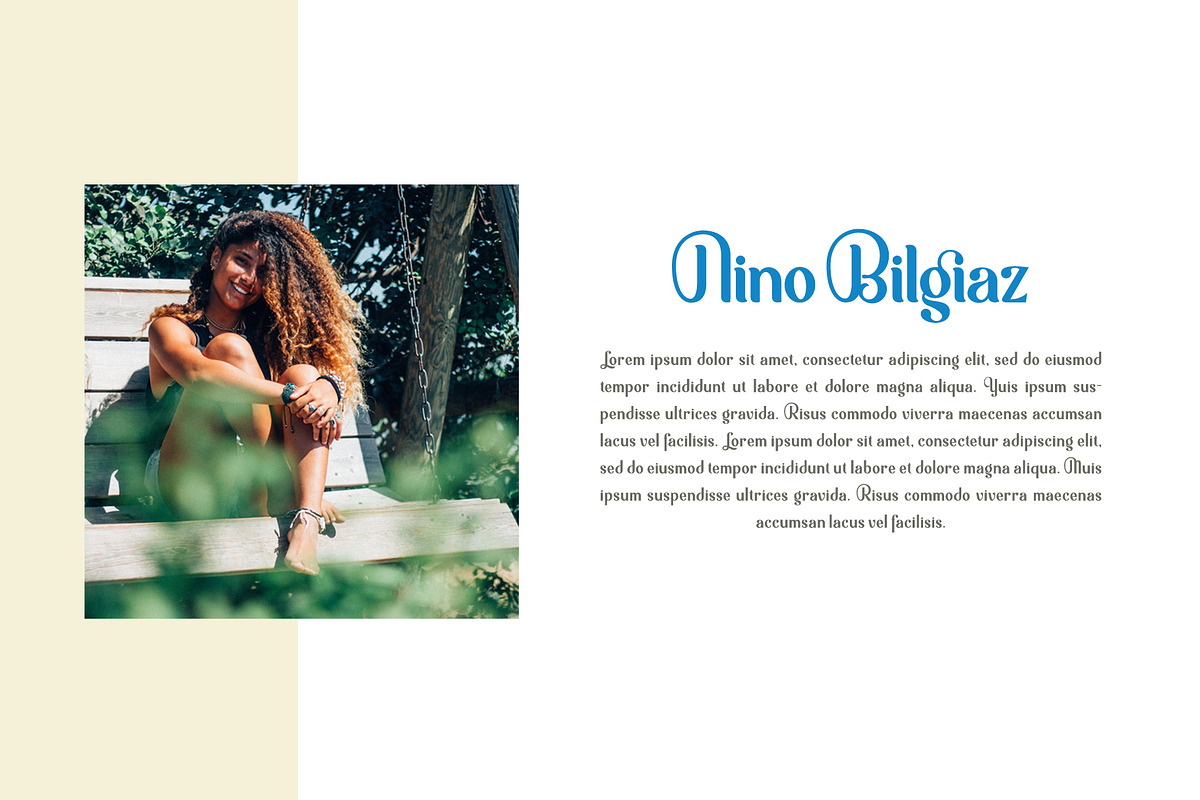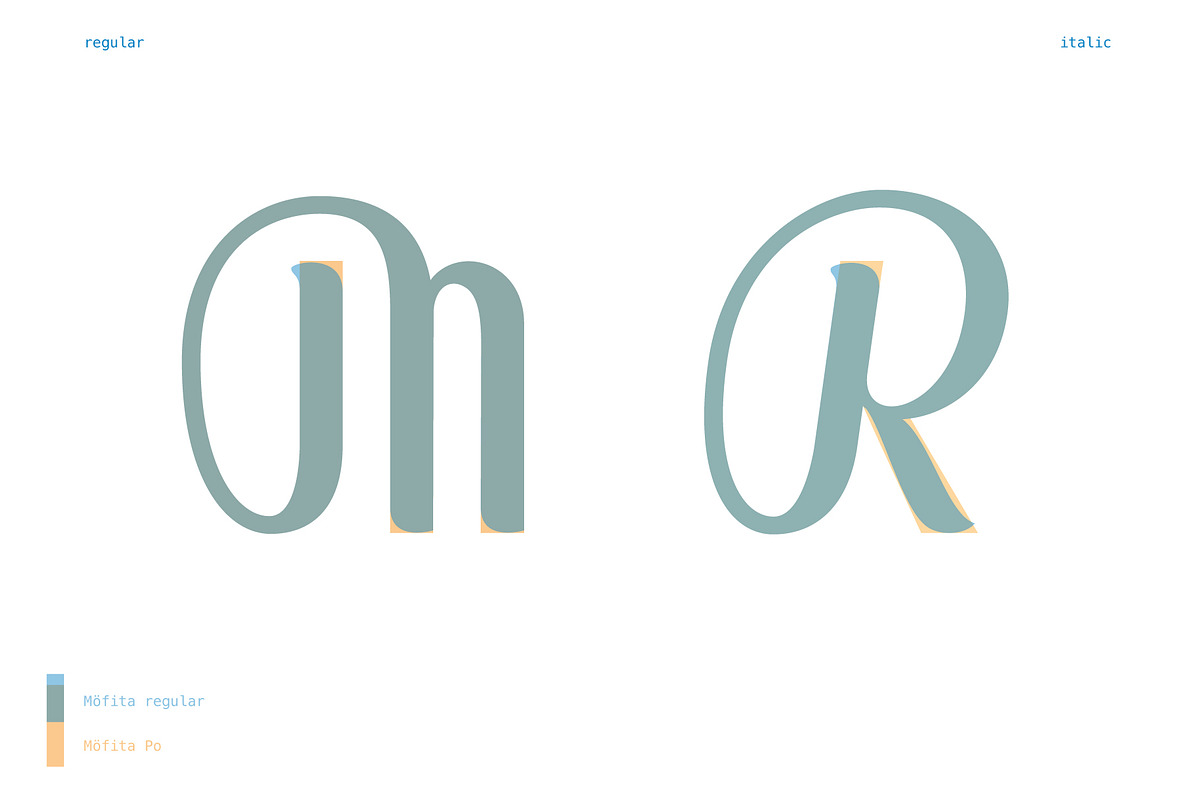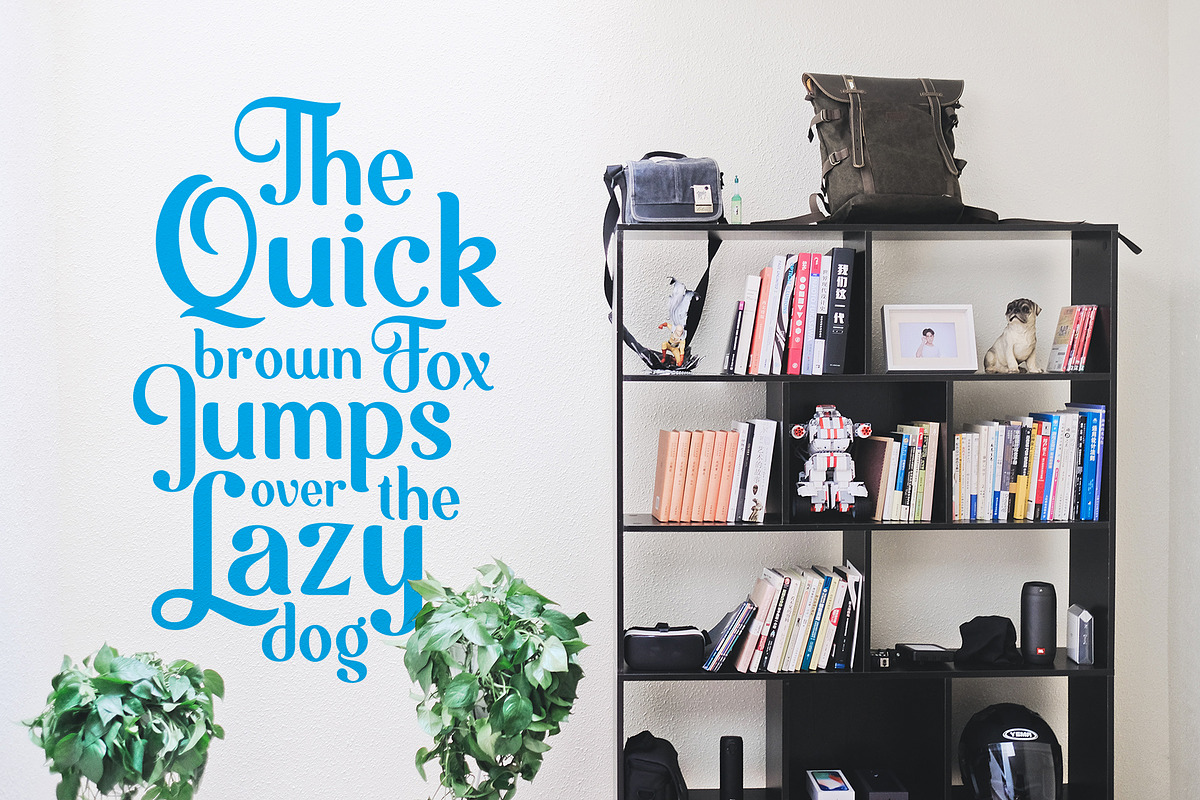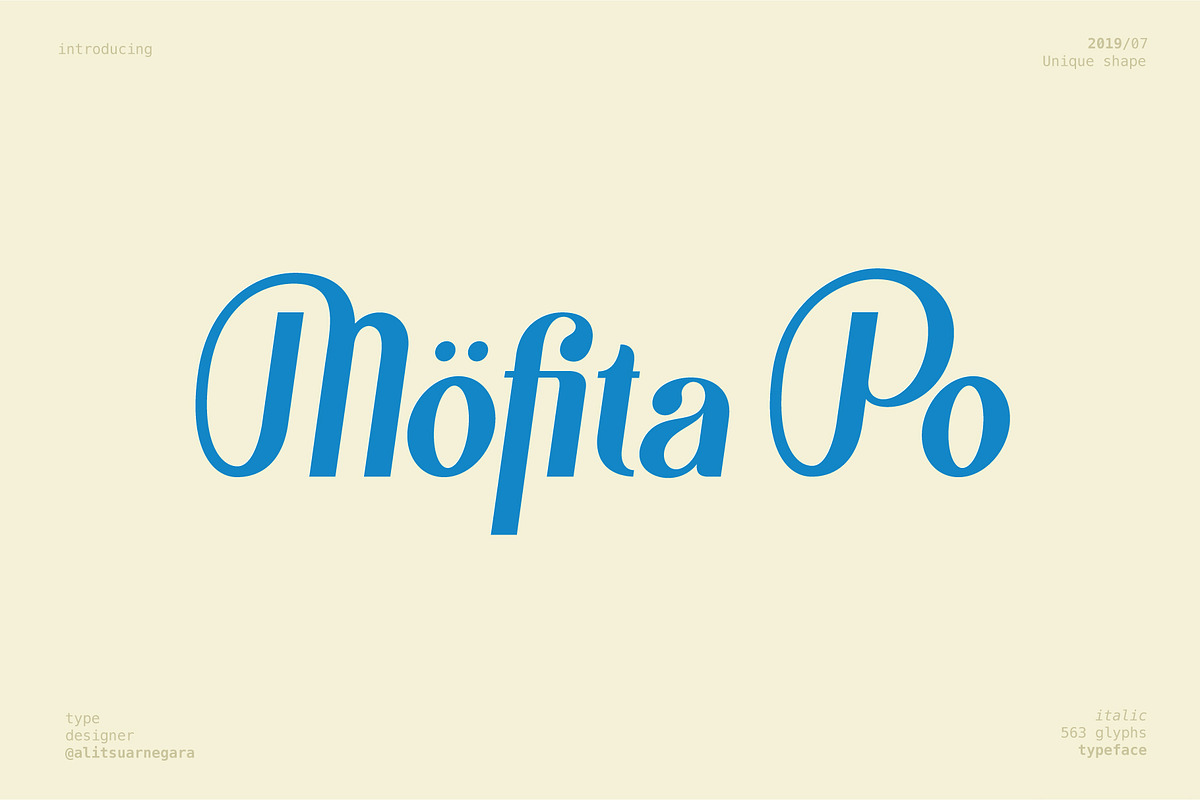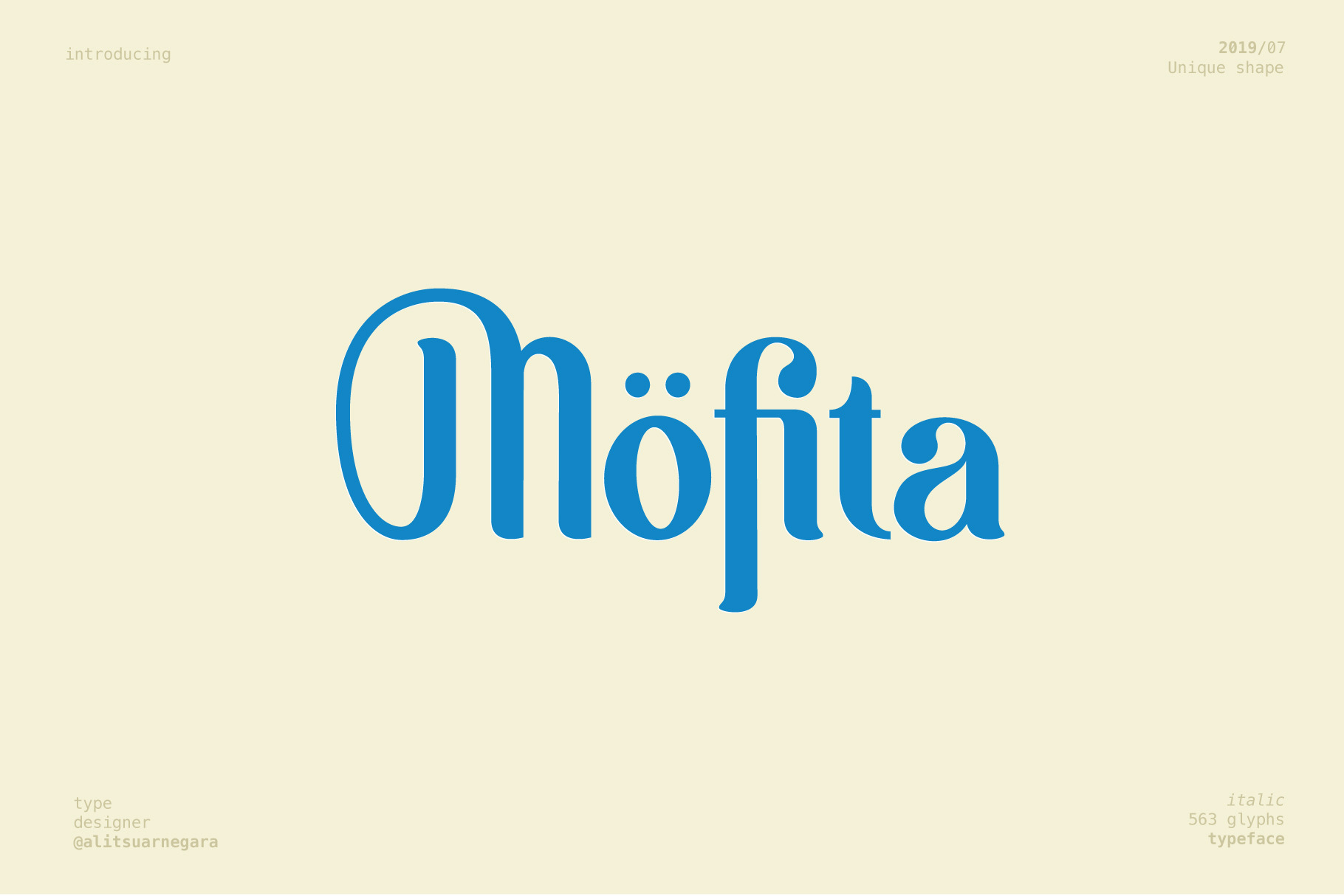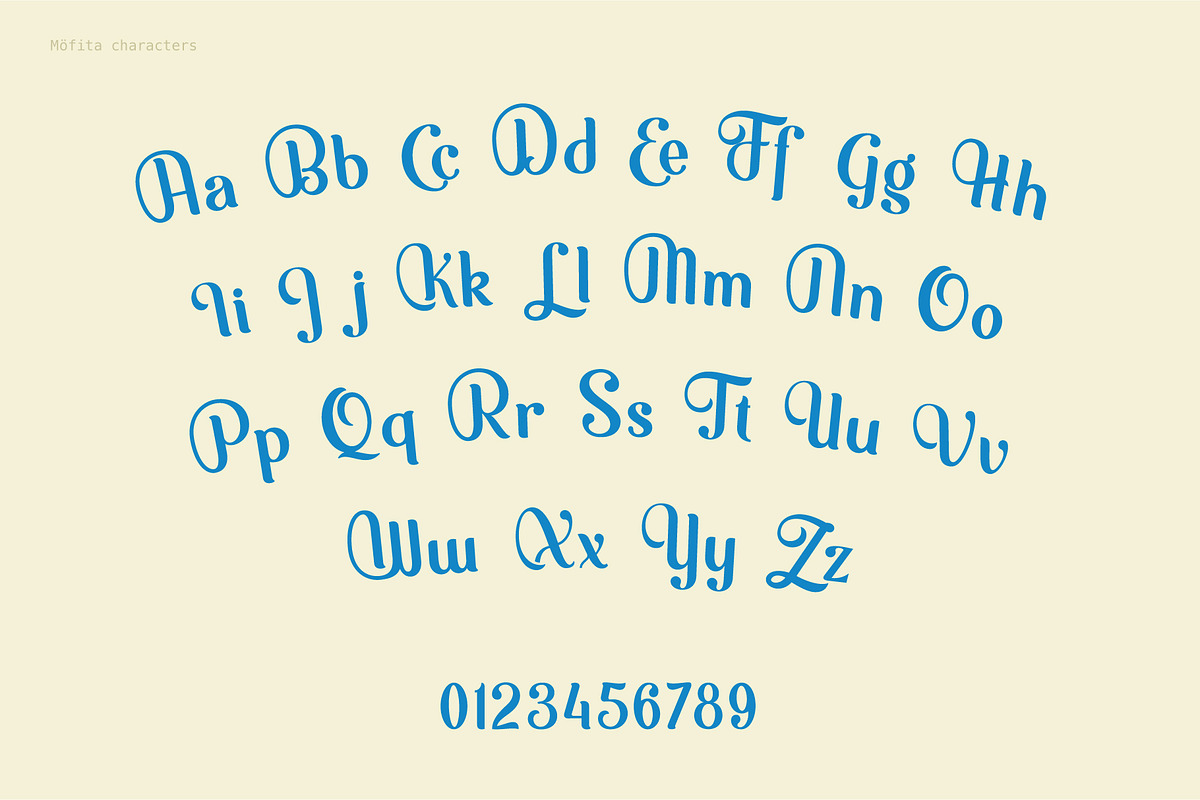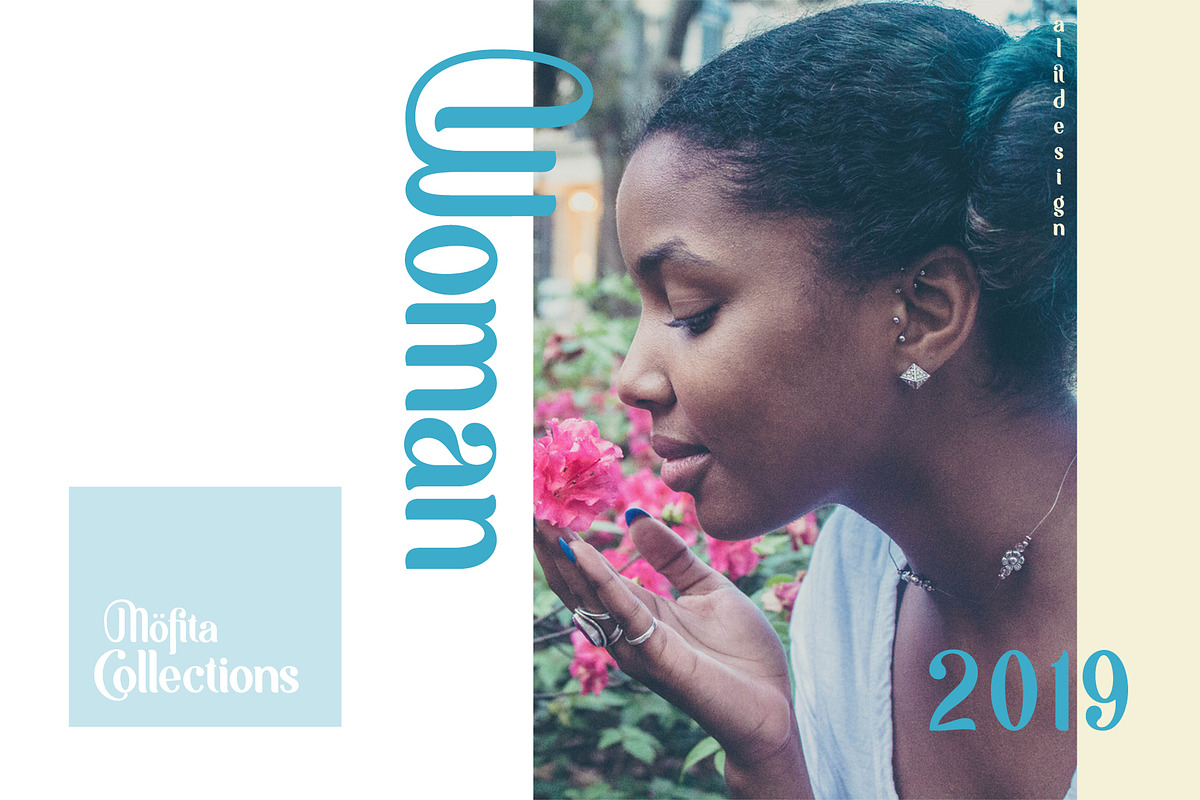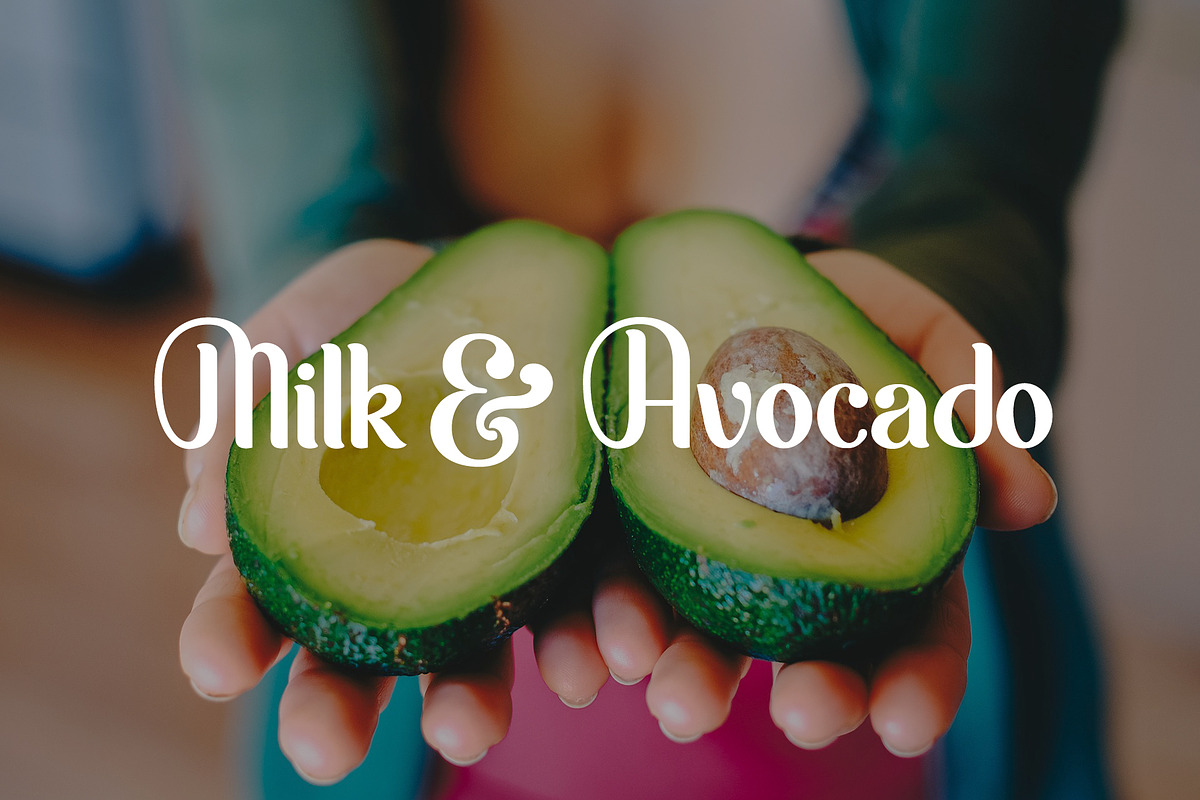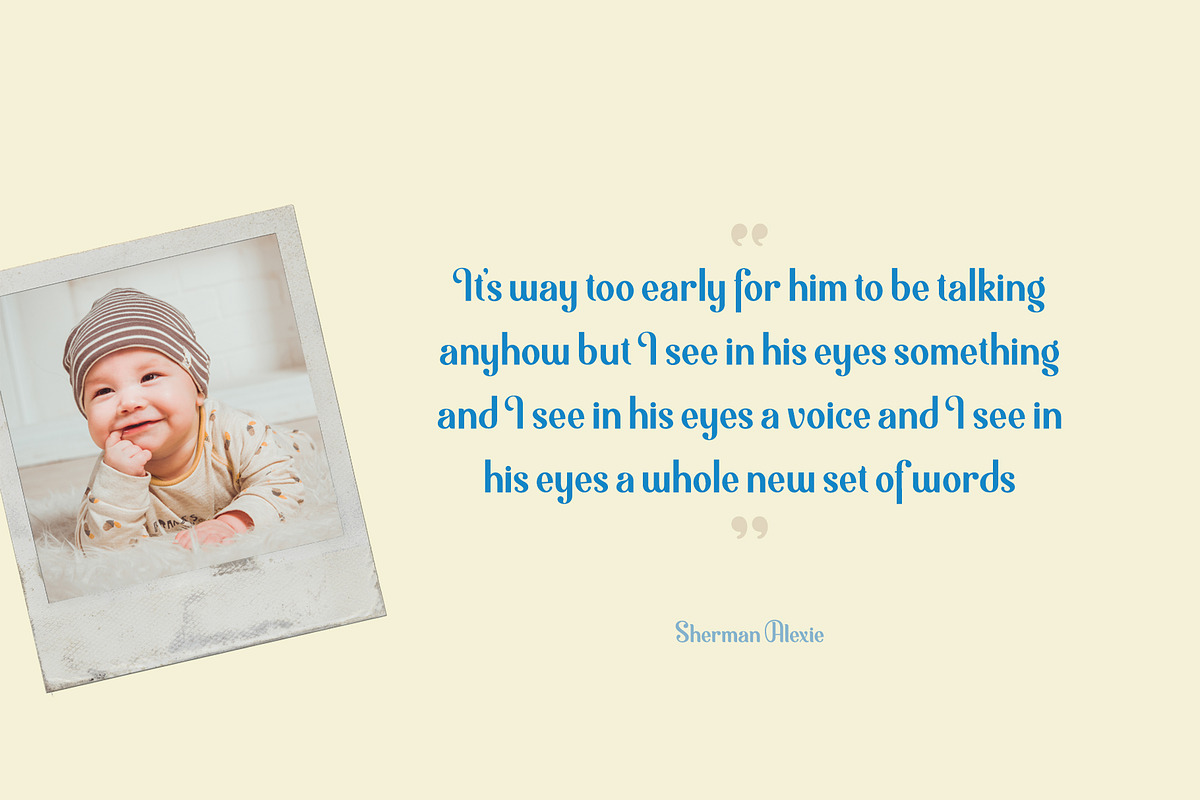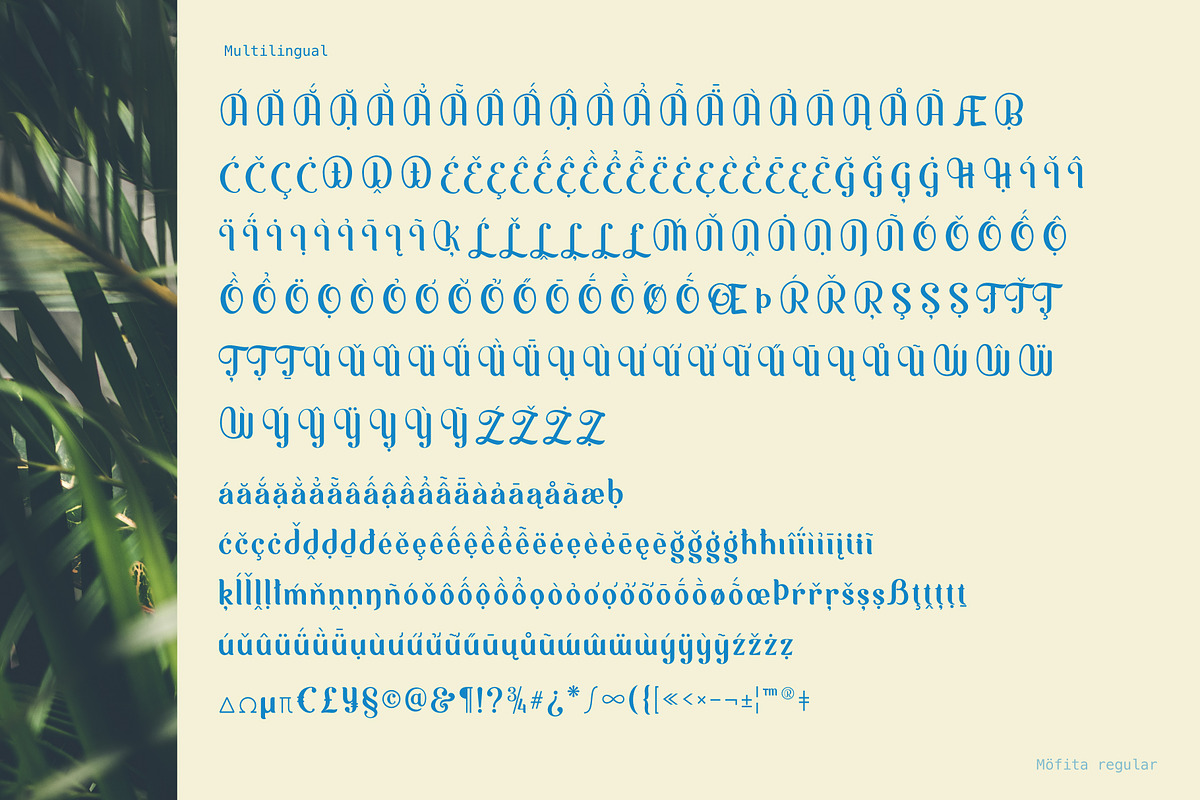
Möfita font
Introducing Möfita font This time we launched a formal font that is unique with the others. This font looks simple and elegant, the font is also very easy to read and suitable to be applied anywhere.
Möfita fonts are supported with multilingual characters, and in the future, they will always be updated for additional characters and alternatives. This font is perfect for your collection for making designs that are elegant, unique and slightly formal. Very good for logotype, header texts, quote design, menu design, etc. We are sure you will not be sorry if you choose the Möfita font to be your collection.